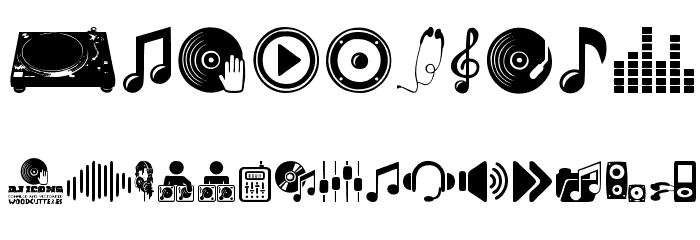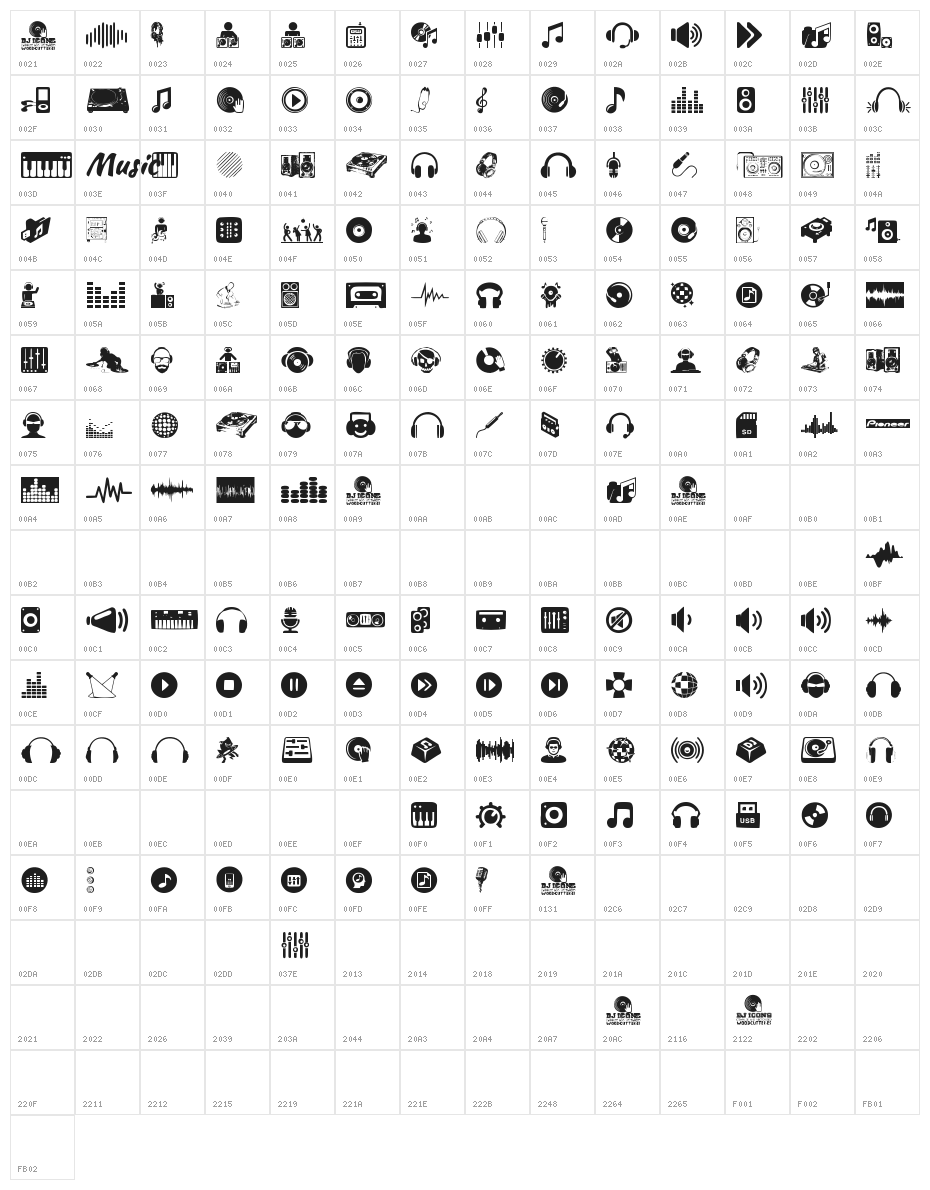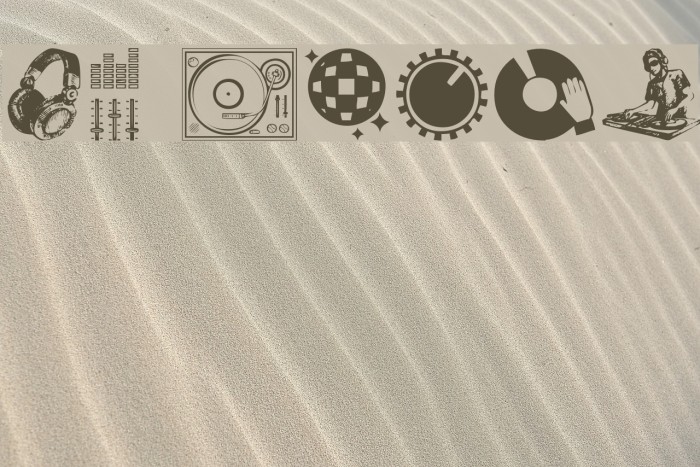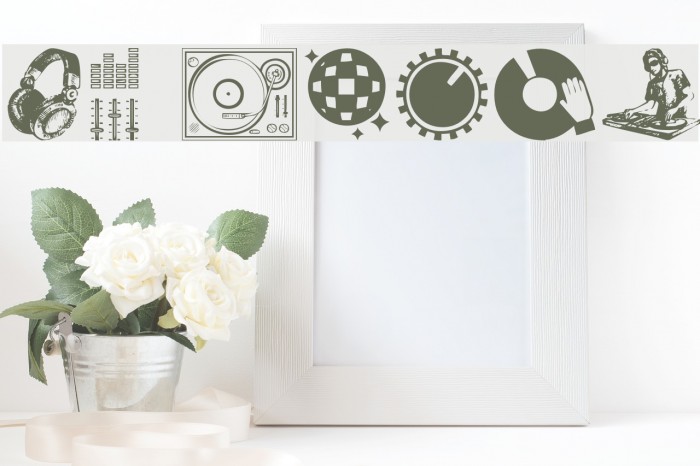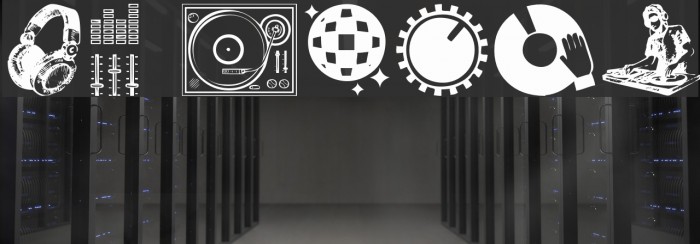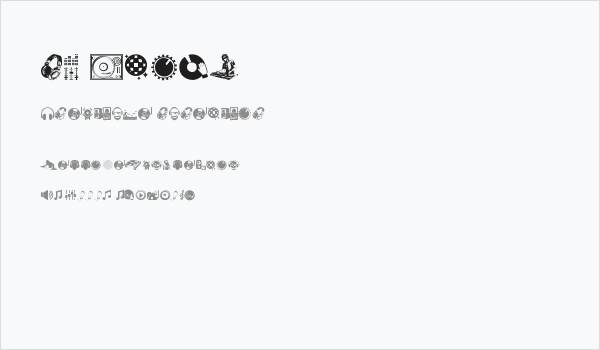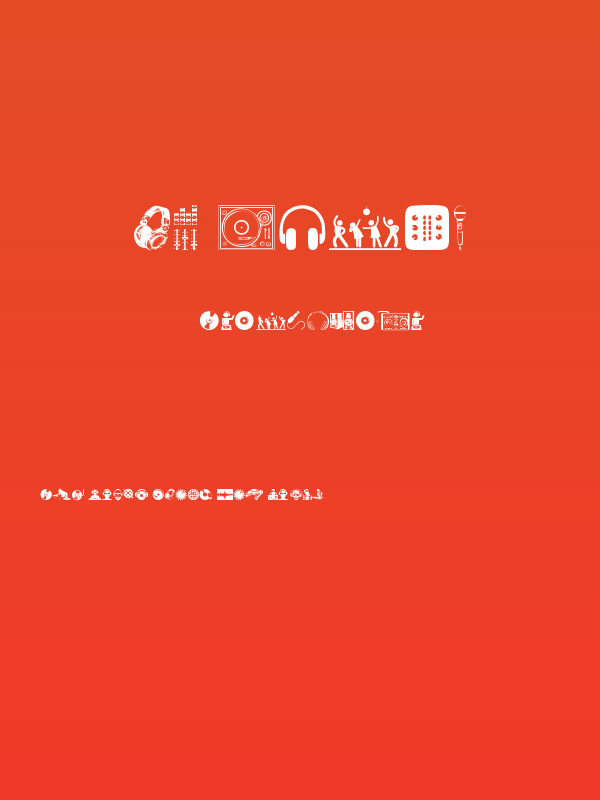
DJ Icons Font
DJ Icons Description
A decorative icon set featuring bold, high-contrast illustrations related to DJing, music, and audio equipment. The icons are solid, filled shapes with clear outlines and minimal internal detail, creating a playful and modern visual style.
| Overall Style | Decorative, Modern, Playful |
| Use Case | Icons, Logos, Display, Themed graphics |
| Proposed Projects | Music event posters, DJ branding, party flyers, app UI icons, social media graphics. |